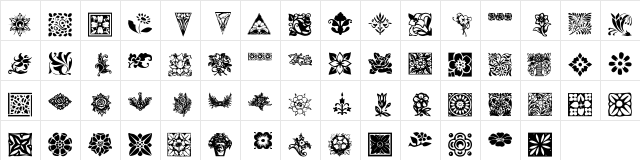
KR Fleurish Floral Regular Font Preview
KR Fleurish Floral Regular
Design Context for KR Fleurish Floral Typeface
KR Fleurish Floral is a composed and adaptable typeface that performs quietly and consistently across a wide range of design contexts.